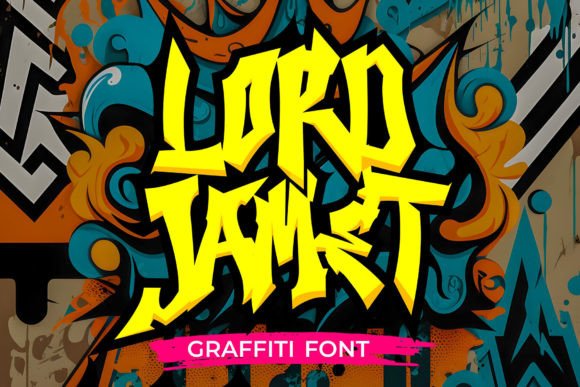
Lord Jamet: A Bold Display Font for Impactful Web Headlines
I was deep into refining the hero section of a new landing page for a Brooklyn-based creative studio—think tight copy, intentional whitespace, and a strong visual rhythm. The client wanted “energy without chaos,” something that felt authentically street-smart but still polished enough for digital screens. That’s when I pulled up Lord Jamet.
Right away, its sharp edges and confident weight stood out—not aggressive, but undeniably present. As a display font, Lord Jamet doesn’t whisper. It anchors. I dropped it into the main headline at 64px on desktop and watched how it held its own over a muted concrete-texture background. No drop shadow needed. No extra stroke. Just clean, high-contrast letterforms with just enough attitude to signal creativity—and just enough structure to feel intentional.
What makes Lord Jamet work so well in real web layouts isn’t just its aesthetic—it’s its behavior. It scales predictably across breakpoints. At 48px on tablet, the letter spacing stays legible. At 36px on mobile, it still reads as a statement—not a decoration. I tested it over both light and dark image overlays, and because of its generous x-height and open counters, it remained scannable even with subtle opacity layers. No pixelation. No fuzzy rendering. Just crisp, confident presence.
That said, I wouldn’t use Lord Jamet for body copy—or even subheadings longer than five words. It’s not built for extended reading. But as a display font? It shines where attention matters most: hero titles, section dividers, CTA banners, shop category headers, and course launch announcements. On a coaching website, I used it only for the headline above the video intro—“Clarity Starts Here”—and paired it with a neutral, highly readable sans serif (Inter, variable-weight) for everything else. The contrast did the heavy lifting: one voice for impact, one for trust.
For an online boutique selling limited-run streetwear, I applied Lord Jamet to product collection banners (“Drop 07”, “Archive Edit”) and kept all product names, pricing, and descriptions in a clean, low-contrast sans serif. The result? Instant visual hierarchy. Scrolling users paused longer on those bold, textured headers—not because they were loud, but because they felt *placed*, like part of the brand’s language rather than an afterthought.
Readability on mobile was a key checkpoint. I checked line height (1.2), letter spacing (+0.5px), and contrast ratio against WCAG guidelines. Over light backgrounds, it passed AA easily. Over darker images, I added a subtle text shadow (1px black at 30% opacity) just for safety—not as a crutch, but as a respectful nod to accessibility-first design. And yes, I verified the webfont files included WOFF2 support and loaded asynchronously. No layout shifts. No flash of invisible text.
Font pairing is where Lord Jamet really earns its place in a modern toolkit. Its personality is strong but not overwhelming—so it pairs beautifully with humanist sans serifs (like Poppins or Manrope) for balance, or with a restrained serif (like Literata or Lora) if the project leans editorial or craft-focused. I avoided pairing it with other decorative fonts—no script, no condensed grotesques—because Lord Jamet already carries the expressive weight. Let it lead. Let the supporting type recede gracefully.
In practice, I’ve used Lord Jamet for:
One thing I appreciate: Lord Jamet doesn’t try to be everything. It’s not a system font. It’s not meant for data tables or navigation menus. It’s a precision tool—best used where you want tone, texture, and intentionality to land in under two seconds. In a world of safe, scalable, and often forgettable typography, Lord Jamet feels like choosing a signature over a stamp.
If your next project needs a voice that’s urban but not chaotic, bold but not brash, distinctive but still professional—try Lord Jamet where it counts most: the first thing people see. Then step back, let the rest of your type system do the work, and watch how much stronger your layout feels—not louder, just clearer.